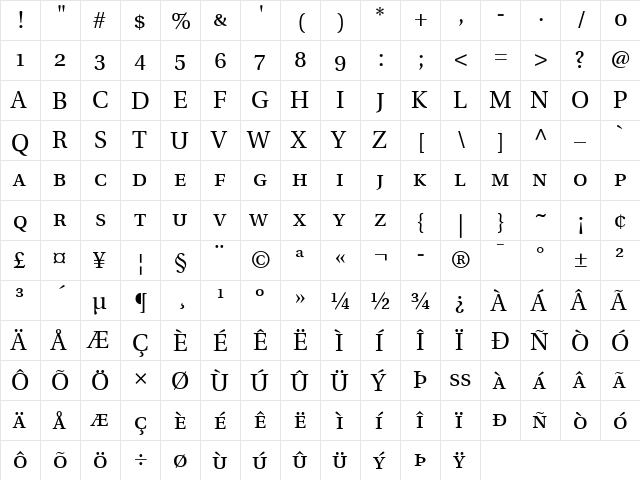
Utopia SC Regular
Design Context for Utopia SC Typeface
Utopia SC takes a measured approach to typography — its balanced proportions and neutral character make it a reliable workhorse for both digital and print work.
Pro Tip: Use Utopia SC in both headline and body roles to test its range before committing to a single application.